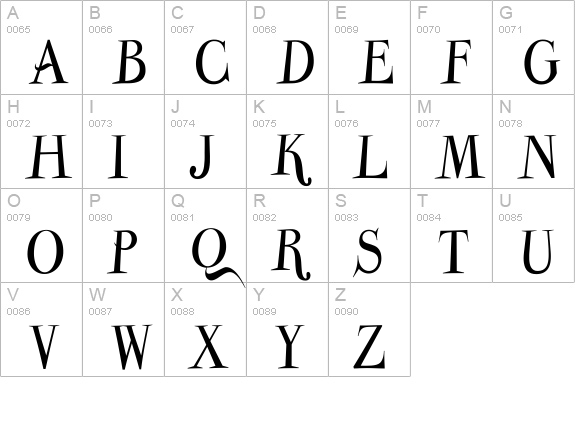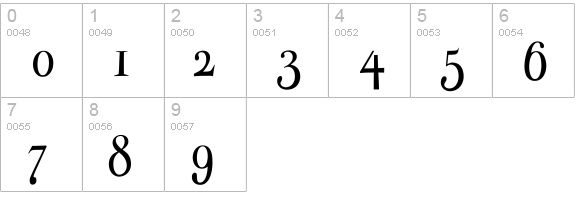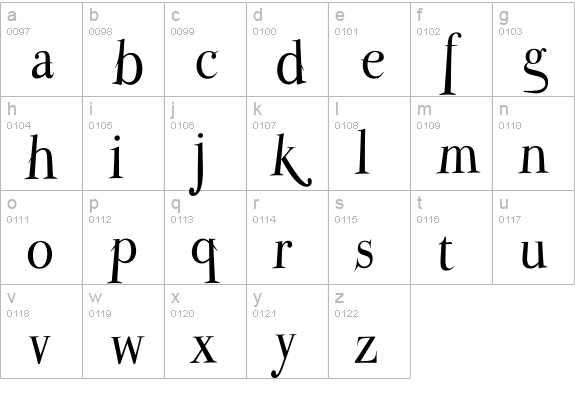
ParmaPetitNormal Font Details
ParmaPetitNormal font is an exquisite typeface that effortlessly blends elegance with modernity. Its clean lines and balanced proportions make it a versatile choice for a wide range of design projects. Whether you are creating a logo, designing a website, or crafting a brochure, this font will add a touch of sophistication to your work. With its timeless appeal, ParmaPetitNormal font is suitable for both formal and informal settings. Its classic letterforms are delicately crafted, providing a sense of refinement and grace. The slightly rounded edges give the font a friendly and approachable feel, making it perfect for conveying warmth and friendliness in your designs. One of the best things about ParmaPetitNormal font is that it is freely available to download at FontsMarket.com. This means that you can easily access and use this font without any financial constraints. Whether you are a professional designer or a hobbyist, you can enjoy the benefits of this high-quality typeface without breaking the bank. The versatility of ParmaPetitNormal font extends to its extensive character set, which includes uppercase and lowercase letters, numerals, punctuation marks, and various special characters. This comprehensive range ensures that you have all the tools you need to create visually stunning and engaging designs. In addition to its aesthetic appeal, ParmaPetitNormal font also boasts excellent readability. Each letter is meticulously designed to ensure clarity and legibility, even at smaller sizes. This makes it an ideal choice for body text in print materials or on digital platforms. Experience the elegance and versatility of ParmaPetitNormal font today. Download it for free at FontsMarket.com and elevate your design projects to new heights. With its timeless beauty and wide range of applications, this font is sure to become a valuable asset in your creative toolkit.